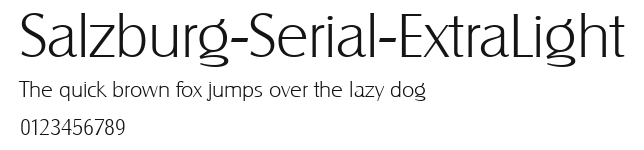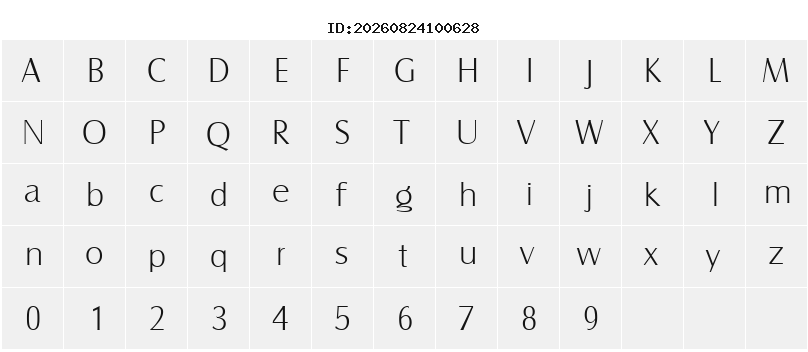
• Font Name: Salzburg-Serial-ExtraLight
About Salzburg-Serial-ExtraLight.ttf
Salzburg-Serial-ExtraLight.ttf is a modern, elegant sans-serif font designed for ultimate readability and visual harmony. Perfect for branding, headlines, web design, and print materials.